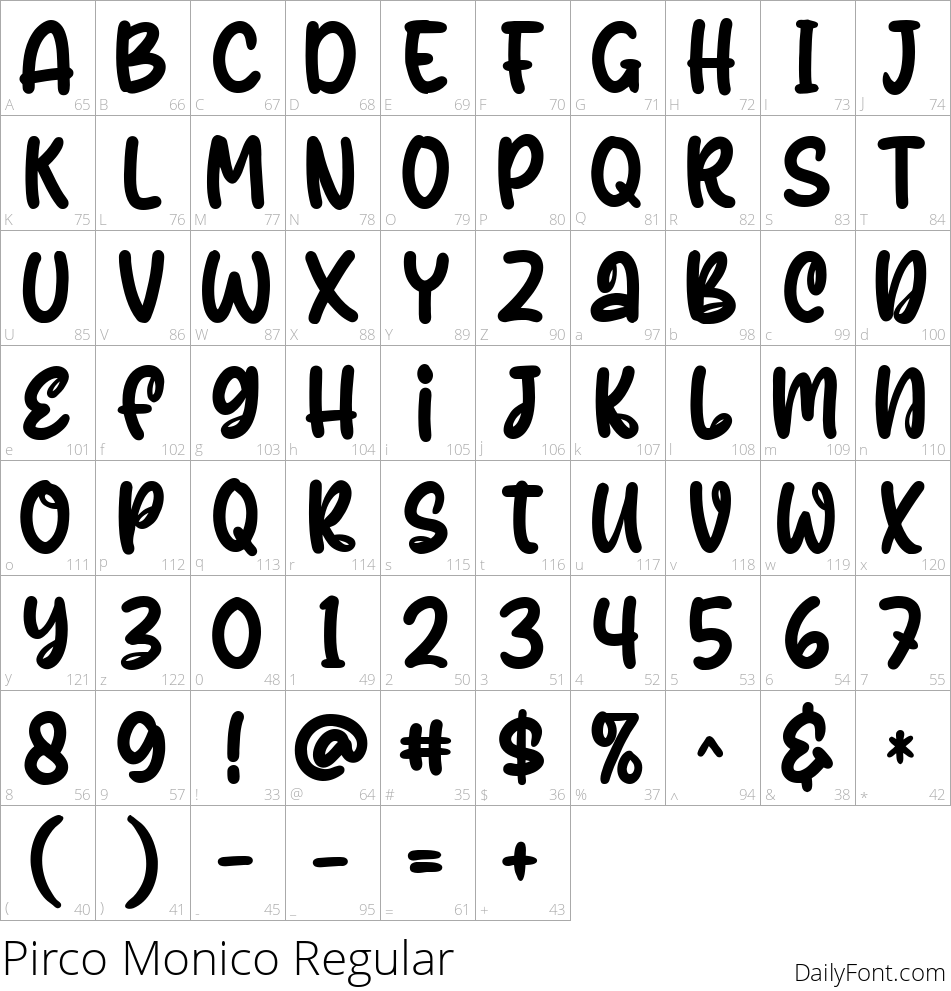
Pirco Monico
Pirco Monico is a quirky and fun display font that injects personality into any design project. Perfect for cartoon-related graphics, children's games, or playful branding, this font stands out with its unique character shapes and vibrant appeal. With soft curves and whimsical details, Pirco Monico captures the imagination and invites creativity.
Beyond its playful aesthetic, Pirco Monico is versatile enough to be utilized across various mediums—be it digital or print. It can enhance websites, promotional materials, or social media posts, making it an essential asset for designers looking to evoke joy and excitement. This font's lively nature will surely engage your audience and add a delightful touch to your creations. Whether you're designing a fun logo or an eye-catching poster, Pirco Monico is the perfect choice to make your work unforgettable.